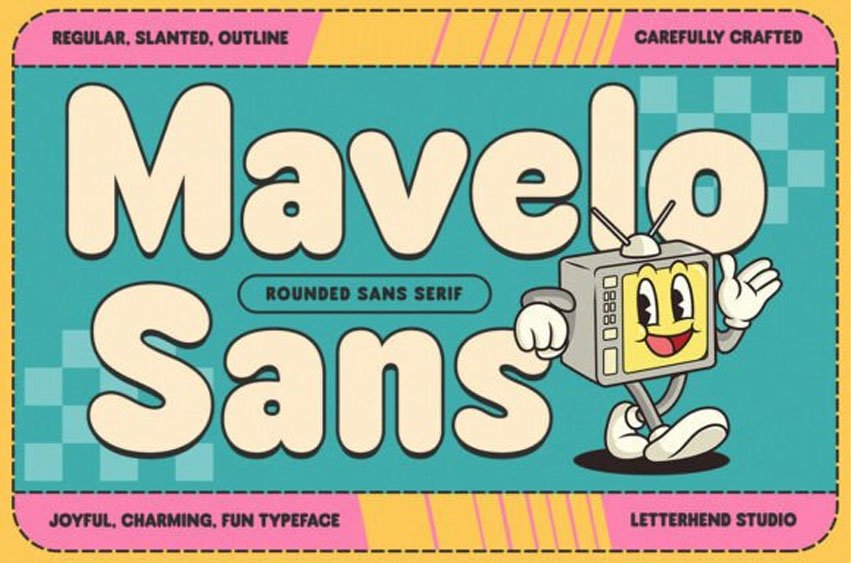
Mavelo Sans Font is a joyful, charming, and fun rounded sans serif display typeface that instantly transports your designs back to the whimsical era of vintage cartoons and groovy aesthetics.
This carefully crafted Mavelo Sans typeface features wonderfully bold, soft, and bubbly letterforms, giving it a playful weight that is perfect for impactful display text. It comes complete with Regular, Slanted, and Outline styles, offering versatile options for stacking, layering, and creating depth in your graphics.
Ideal for children’s product branding, nostalgic event posters, retro logos, playful apparel design, and YouTube thumbnails, the delightful curves of the Mavelo Sans font ensure your message is memorable, friendly, and bursting with personality.
The font is also PUA-encoded, ensuring effortless access to all glyphs, swashes, and alternate characters to help you customize your creations with ease.